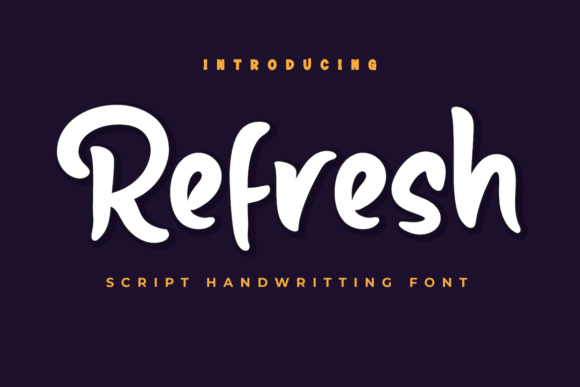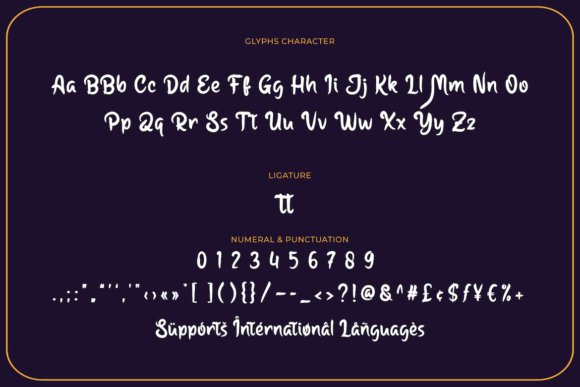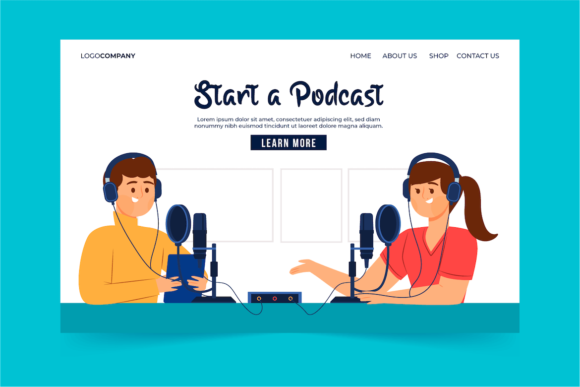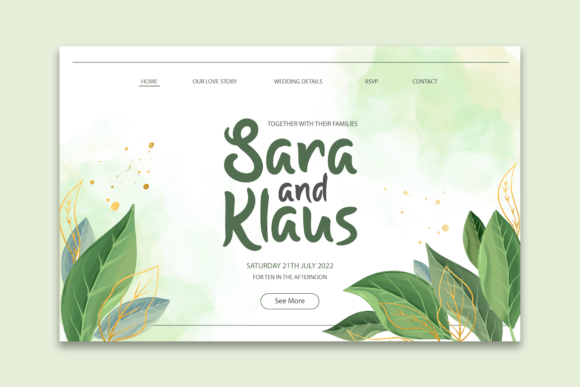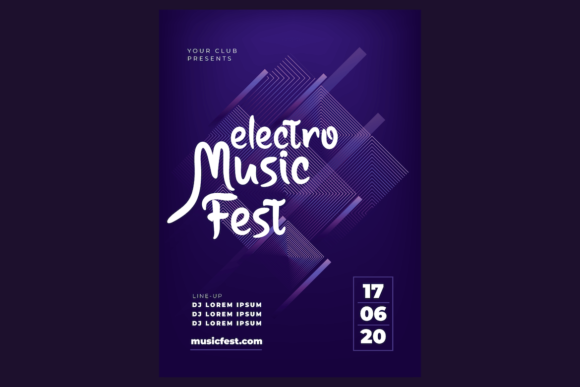
Refresh Font
About Refresh Font
Refresh is a chic and trendy paint brushed handwritten font. No matter the topic, this font will be an incredibly asset to your fonts’ library, as it has the potential to elevate any creation.